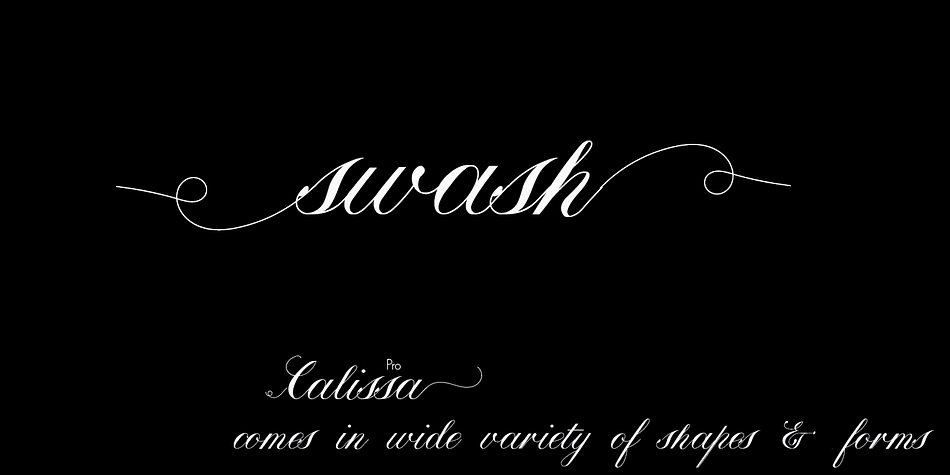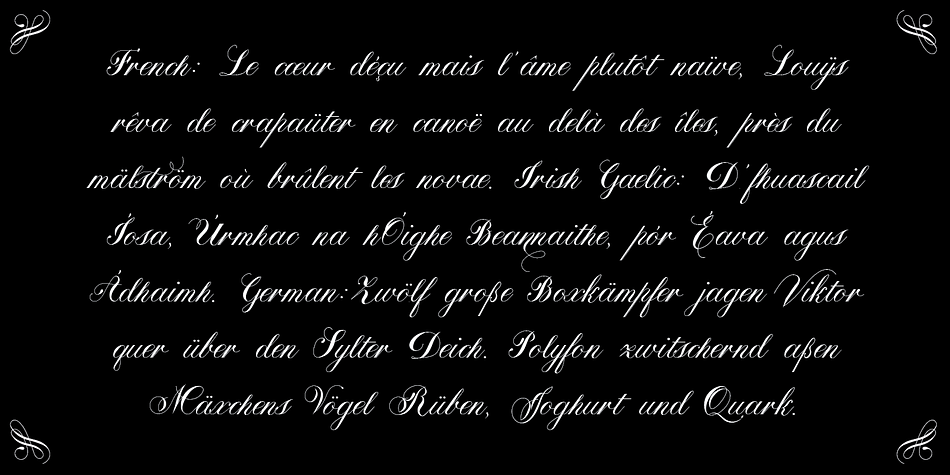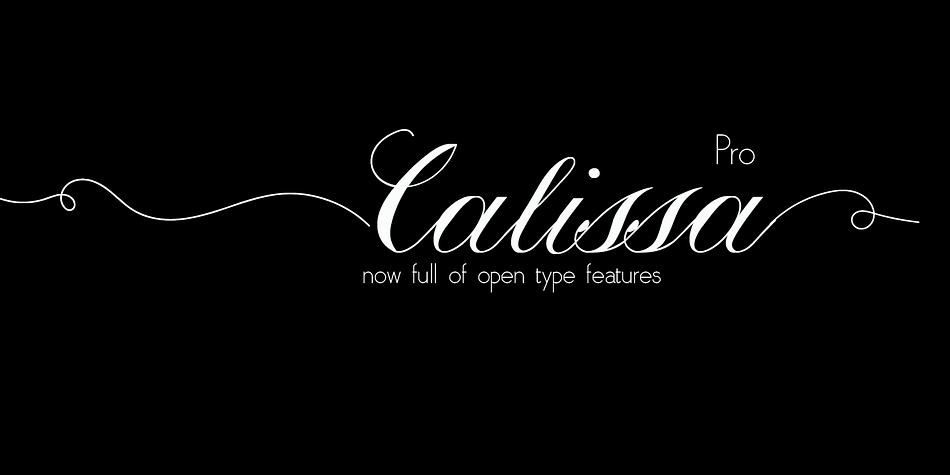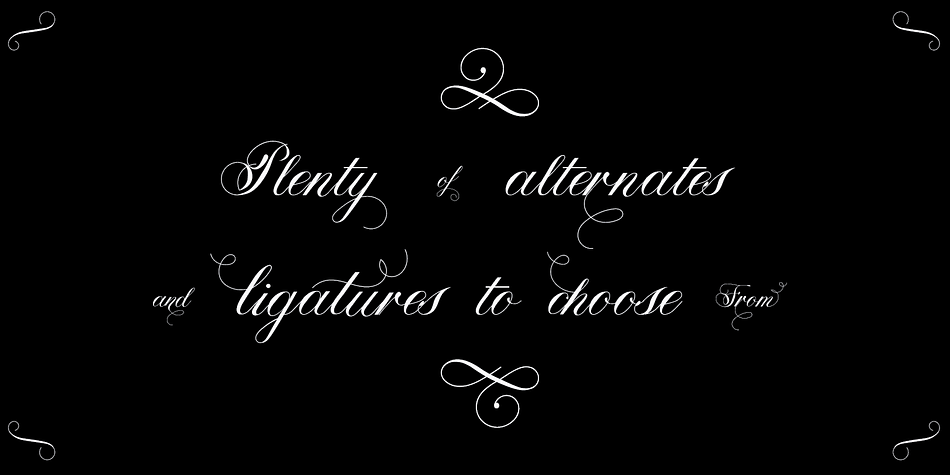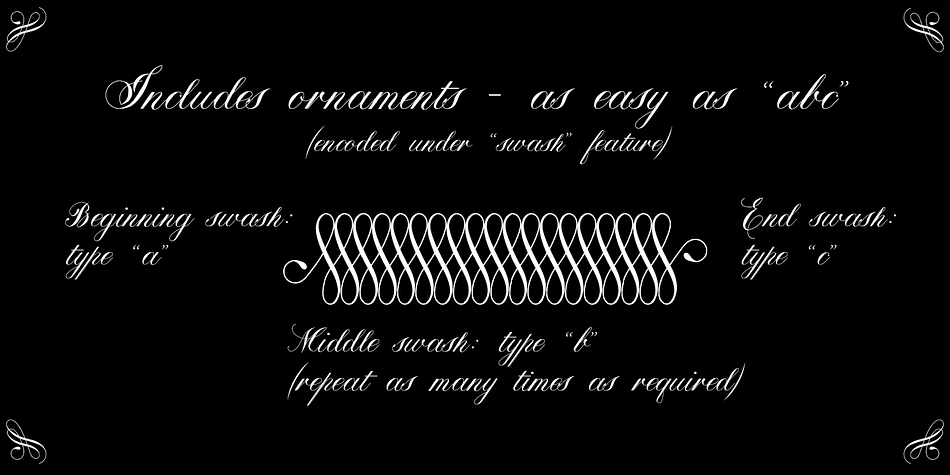
Calissa Pro is a script and modern calligraphy font published by Aga Silva Fonts.
Calissa Pro is a multilingual, handwritten stylish copperplate calligraphy font, a sort of upgrade to issued earlier this year Calissa font. This file contains over 1800 glyphs and has many open type features including: fancy swashes, alternates, ligatures and lettering - all easily available at the click of a mouse.